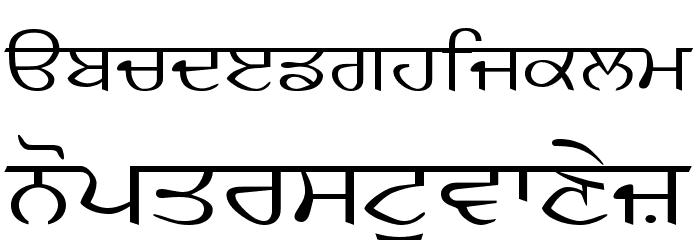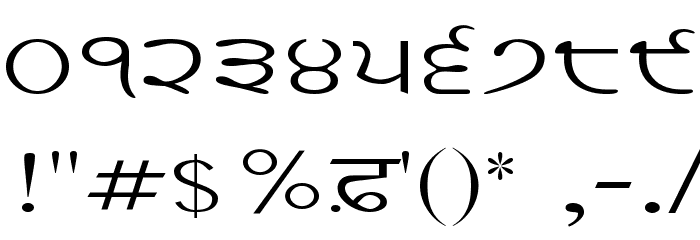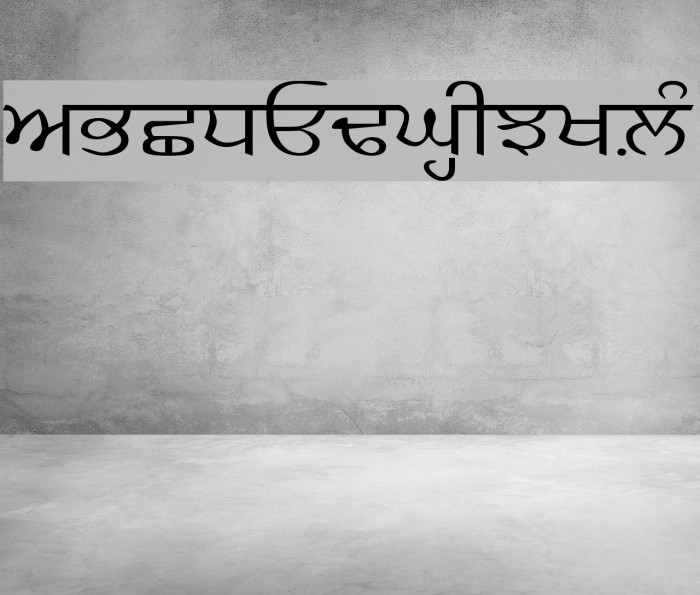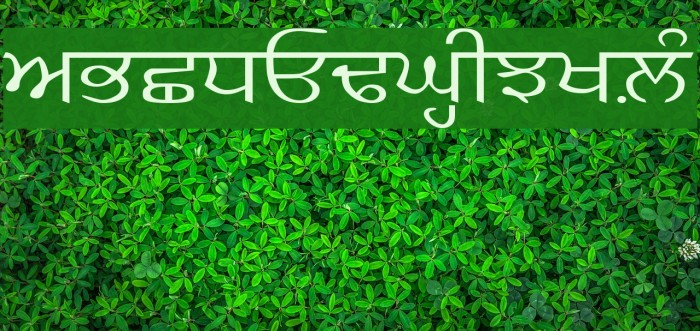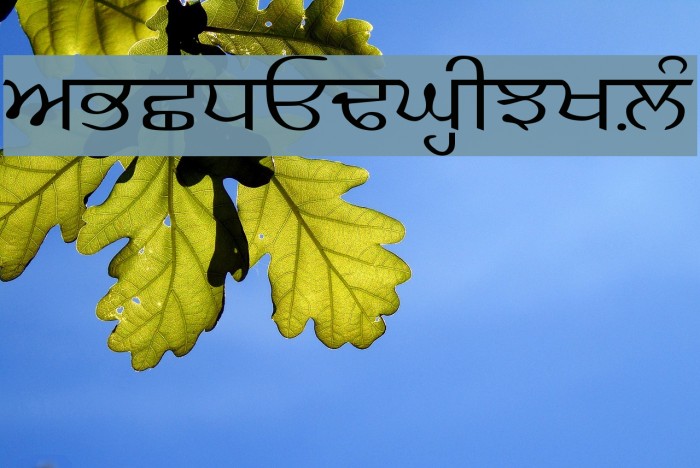
GurbaniKalmi Font
This font features a distinctive script style with elegant curves and a flowing design, typical of traditional calligraphy. The characters are well-defined with a moderate stroke contrast, giving it a balanced and harmonious appearance. The script is particularly notable for its intricate detailing and the way it maintains readability despite its decorative nature. The numerals and special characters are designed to complement the overall aesthetic, ensuring consistency throughout the typeface. This font is ideal for projects that require a touch of cultural authenticity and artistic flair.
A traditional script font with elegant curves and moderate stroke contrast.
- Proposed Projects: Ideal for cultural projects, artistic designs, invitations, and decorative headings.
- Overall Style: Traditional
- Use Case: Headlines, Decorative text, Cultural projects